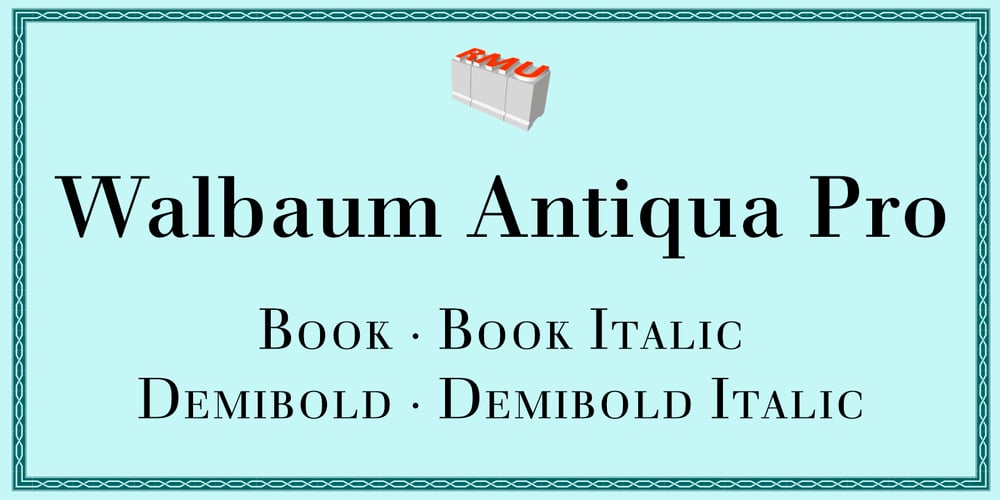
Walbaum Antiqua Pro
Walbaum Antiqua Pro font
Walbaum Antiqua Pro Font Family was designed by Justus Erich Walbaum, Ralph M. Unger and published by RMU. Walbaum Antiqua Pro contains 3 styles and family package options. Walbaum Antiqua Pro is an RMU redesign of a German font classic, with three different number forms and small caps throughout all font styles.